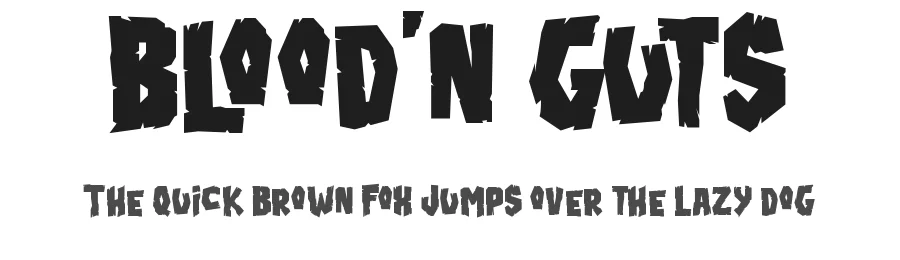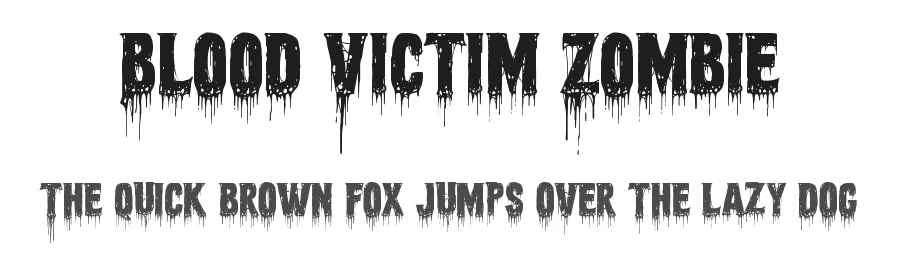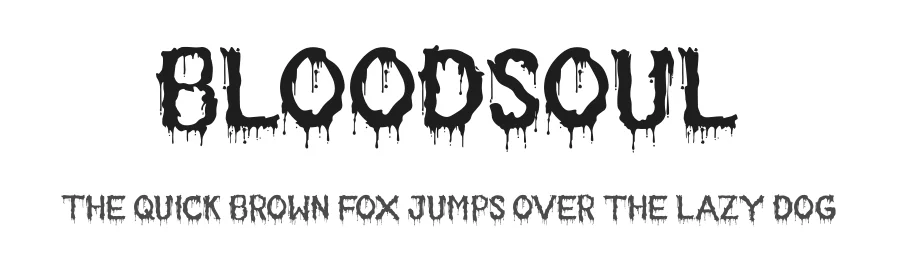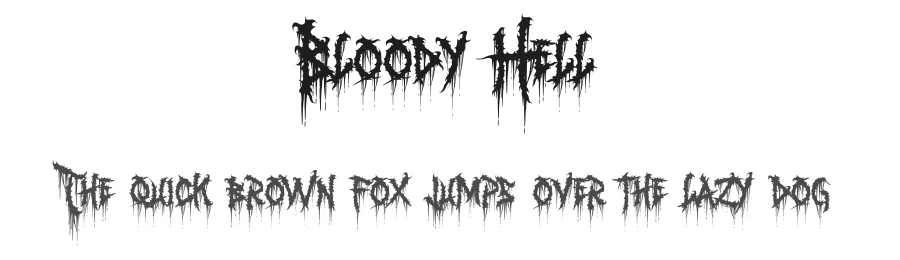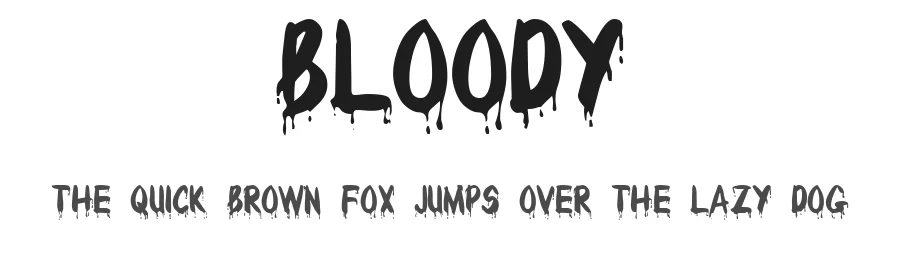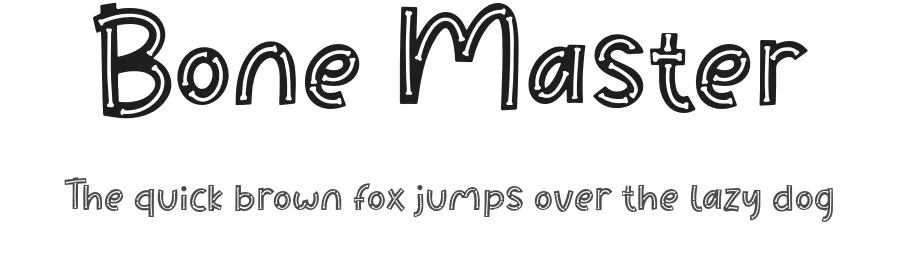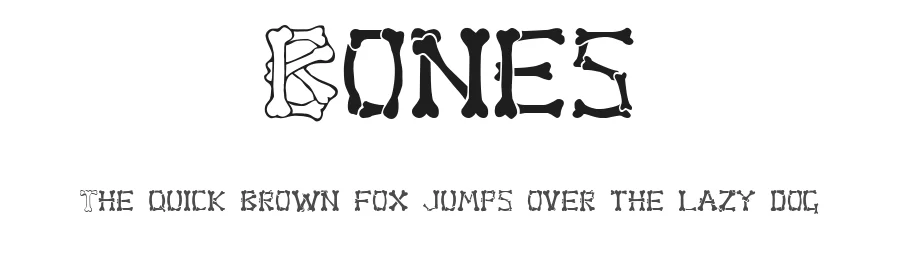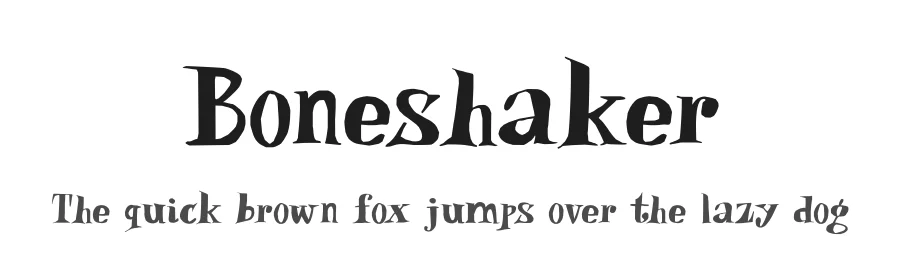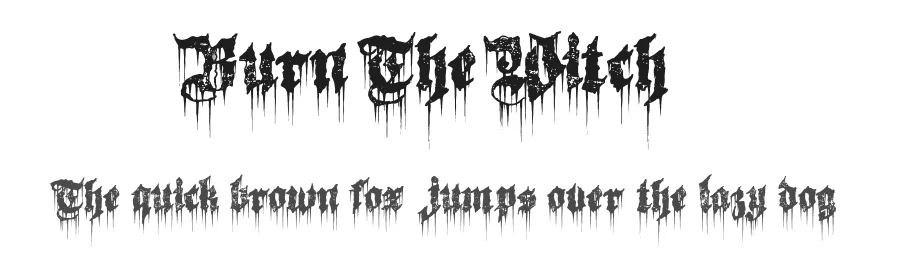
Free Halloween Fonts — Spooky, Gothic & Horror 2026
Halloween-ready typefaces for Etsy boutique sellers, Cricut costume makers, and DTF tee printers gearing up for October 31, 2026. 30 free horror, gothic, blood-drip, skull, zombie, and witch fonts perfect for Halloween party invitations, trick-or-treat tote bags, yard signs, mug designs, and seasonal storefront branding. Every font in this list is free to download from FontBoxDL — start designing your Halloween product line in May to beat the September rush.
Best Free Halloween Fonts for Cricut, Etsy & Costumes
Halloween is the second-largest US craft selling season after Christmas. Whether you''re building an Etsy Halloween shop, cutting vinyl decals for trick-or-treat tote bags, or printing spooky tees for a haunted house event, the right typeface turns a flat design into something genuinely creepy. We''ve assembled 30 free fonts in six distinct horror styles — blood brush, gothic blackletter, skull display, zombie, witch & vampire, and pumpkin-themed Halloween classics.
Blood Brush & Drip Fonts for Tees
Bloodsoul, Horror Brush, Bloody Hell, Blood''n Guts, and Bloody capture that dripping-paint horror movie poster aesthetic — perfect for Halloween tees, haunted house signage, and slasher-themed event flyers.
Gothic Blackletter for Sophisticated Spook
Horror Korpus, Stencil Gothic, JMH Horror, Horroroid, and Horrorcore bring medieval blackletter weight without going cheesy — ideal for vampire-themed wedding invitations, Halloween-themed bar menus, and gothic-aesthetic boutique branding.
Skull & Bones Display Fonts
Dr. Bones, Boneshaker, VTKS Skulls, Bone Master, and Bones work for skull-iconic designs — bone-shaped letterforms that read as horror without needing extra clip art.
Zombie & Undead
Zombiewolf, Zombie, Curse of the Zombie, Zombies Reborn, and Blood Victim Zombie deliver the rotted-flesh aesthetic for zombie crawl event posters, undead-themed game days, and "I survived" Halloween tee designs.
Witch, Vampire & Macabre
Swamp Witch, Burn The Witch, Witchwoode, Frisky Vampire, and The Macabre are perfect for witchy aesthetic shops, vampire romance novel covers, and macabre Etsy product lines.
Pumpkin & Halloween Classics
Timemachine Halloween, Metalzeus Halloween, Pumpkin Story, Pumkins Halloween, and Western Nightmare are the fonts with "Halloween" in their DNA — jack-o''-lantern themed glyphs, classic October imagery, and trick-or-treat ready.